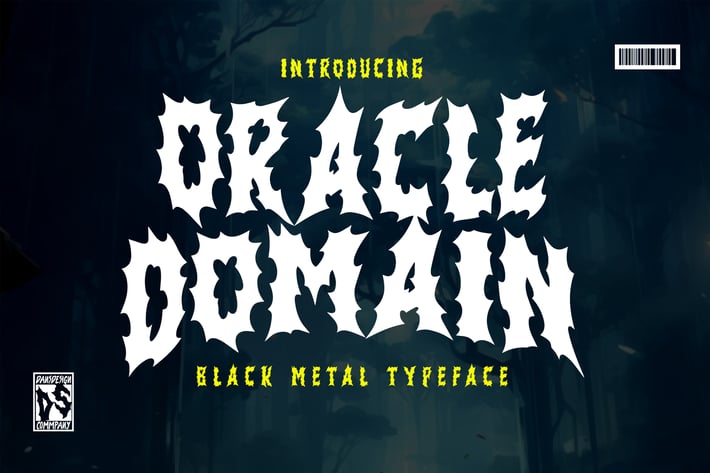
Oracle Domain Metal Horror Graffiti Y2k Font
Oracle Domain Metal Horror Graffiti Y2k Font is a distinct, highly detailed. Marker Display Font.
It would make a great choice for exquisite retro-urban designs, business branding, logos, Apparel designs, and more.